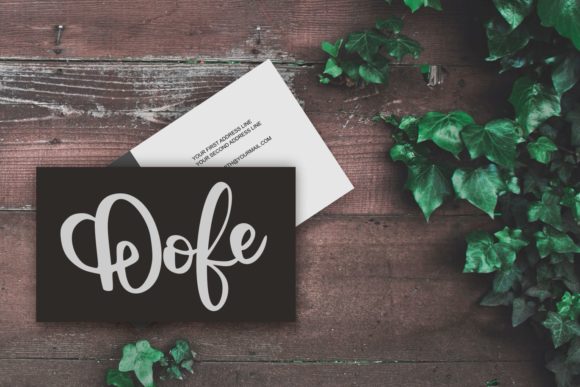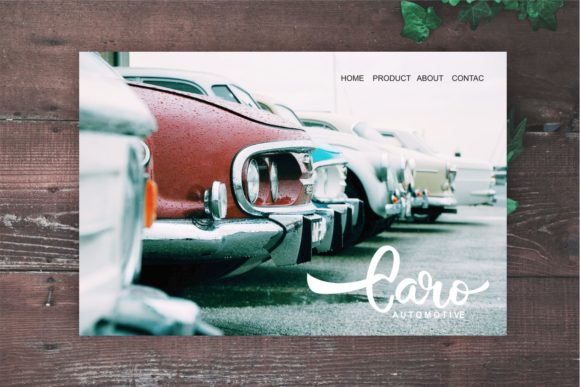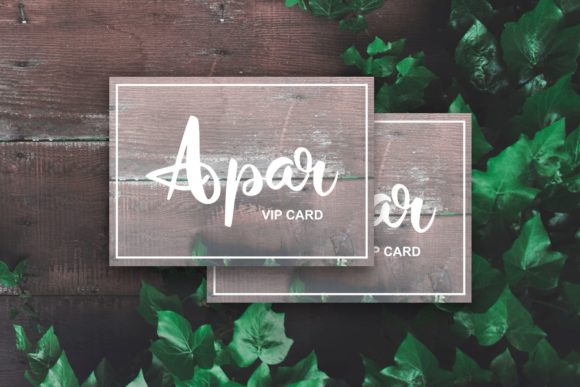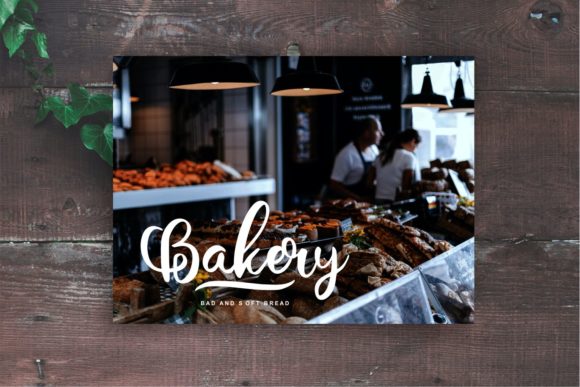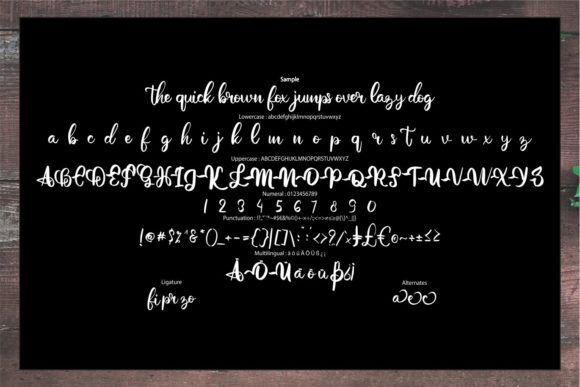
The Gotre Font: A Swashy Script to Elevate Your Designs
I’ll never forget the time I was working on a wedding invitation project, and my client asked for a font that would add a touch of whimsy and romance to the design. I scoured the internet, tried out countless fonts, but nothing seemed quite right. That was until I stumbled upon the Gotre font. Its unique, swashy script instantly captured the essence of what my client was looking for, and I knew I had found the perfect fit.
An Honest Review of Gotre Font
- ✨ Unique and swashy script that adds a touch of charm to any design
- 🎨 Versatile and can be used for a variety of design projects, from wedding invitations to branding and packaging
- 💫 Beautifully crafted with attention to detail, making it a joy to work with
While I absolutely love the Gotre font, there are a few minor quirks to be aware of:
- 🤔 Some of the swashes and alternates can be a bit finicky to access, especially for beginners
- ⚠️ The font may not be suitable for very long blocks of text, as it can be quite ornate and attention-grabbing
The Story Behind Gotre Font
The Gotre font was designed by a team of typographers who wanted to create a unique and swashy script that would add a touch of charm to any design. Inspired by traditional calligraphy and hand-lettering, Gotre is a modern take on classic script fonts. With its beautiful craftsmanship and attention to detail, Gotre has quickly become a favorite among designers and crafters.
| Author | Vunira |
Q: What is the Gotre font?
A: The Gotre font is a unique and swashy script font that’s great for adding an extra touch of charm to your designs.
Q: Is Gotre font suitable for body text?
A: While Gotre font is highly legible, it’s not recommended for long blocks of body text. It’s best used for headings, titles, and short paragraphs.
Q: How do I access the swashes and alternates in Gotre font?
A: The swashes and alternates in Gotre font can be accessed through the OpenType features in your design software. Check your software’s documentation for specific instructions on how to access these features.